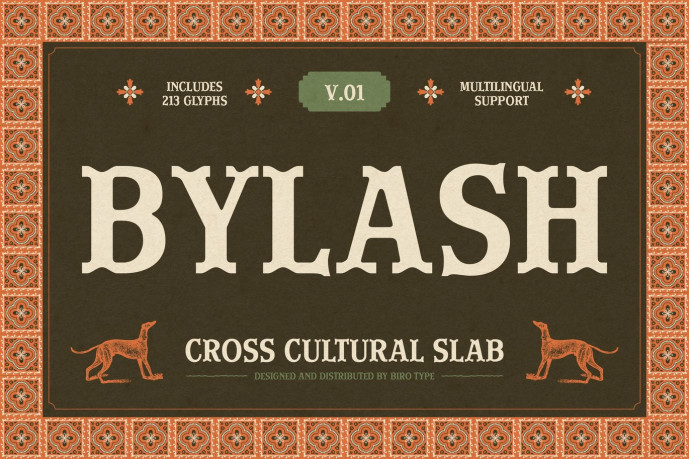
Bylash is a retro slab serif that blends vintage elegance with the richness of cultural design. Inspired by historic printmaking and collectible ephemera, it features bold forms and refined details that create a distinctive old-world character. Whether used for packaging, branding, book covers, posters, or café identities, Bylash delivers an authentic nostalgic appeal.